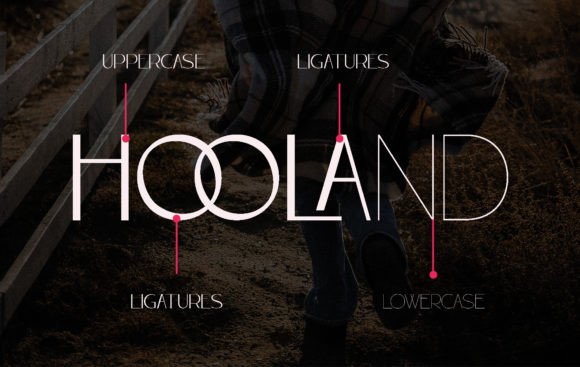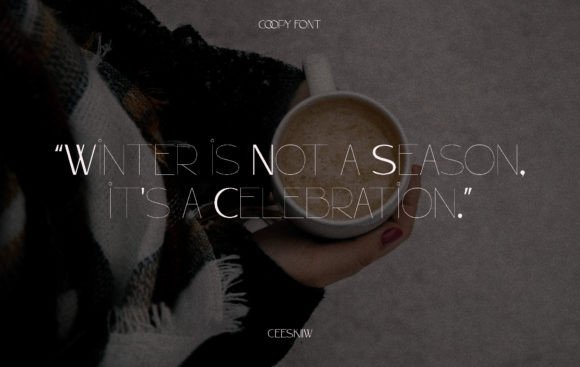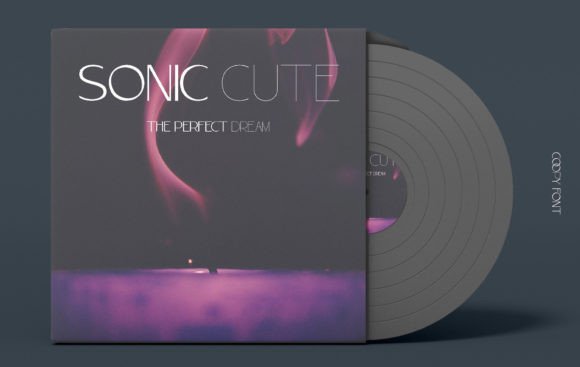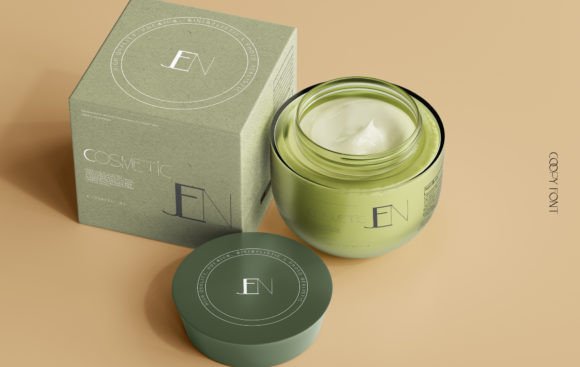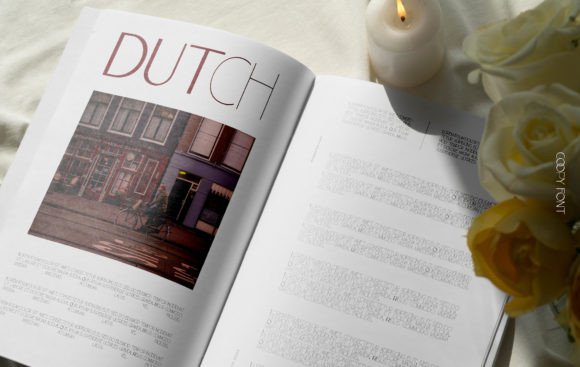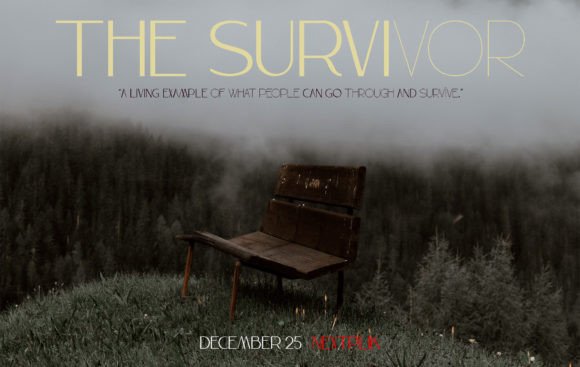
Introducing Coopy Font: Elevate Your Designs with Elegance and Style
Are you looking for a font that can add a touch of luxury and sophistication to your projects? Look no further than Coopy Font, an elegant sans serif font designed to bring your designs to the next level. In this article, we’ll dive into the features and benefits of Coopy Font, and explore how it can be used to create stunning visual content.
What is Coopy Font?
Coopy Font is a modern sans serif font that exudes elegance and style. Its clean lines, precise curves, and balanced proportions make it perfect for a wide range of design applications. Whether you’re working on a logo, branding project, wedding invitation, or blog headline, Coopy Font is the ideal choice.
Key Features of Coopy Font
- Elegant and Sophisticated: Coopy Font boasts a sleek and refined design that’s perfect for high-end branding and luxury projects.
- Versatile: Coopy Font can be used for a variety of design applications, including logotypes, wedding monograms and invitations, blog headlines, and more.
- Easy to Read: The font’s clear and precise letterforms ensure excellent readability, even at small sizes.
- Highly Customizable: Coopy Font comes with a range of weights and styles, allowing you to tailor it to your specific design needs.
Design Applications for Coopy Font
Coopy Font is an incredibly versatile font that can be used in a wide range of design applications. Here are some ideas to get you started:
- Logotypes and Branding: Coopy Font is perfect for creating luxury brand identities, including logos, business cards, and letterheads.
- Wedding Invitations and Monograms: Add a touch of elegance to your wedding stationery with Coopy Font, ideal for invitations, save-the-dates, and monograms.
- Blog Headlines and Titles: Use Coopy Font to create eye-catching headlines and titles for your blog or website, adding a touch of sophistication to your online content.
- Packaging and Advertising: Coopy Font is also suitable for packaging design, advertising, and marketing materials, where its elegant and refined design can help your brand stand out.
Why Choose Coopy Font?
With so many fonts available, why choose Coopy Font for your design projects? Here are just a few reasons:
- Unique and Exclusive: Coopy Font offers a fresh and unique design that’s sure to set your projects apart from the crowd.
- High-Quality: Coopy Font is crafted with precision and attention to detail, ensuring a high-quality design that’s perfect for professional applications.
Get Inspired with Coopy Font
Ready to see Coopy Font in action? Browse through our preview gallery to get inspired by the endless possibilities of this elegant sans serif font. From luxurious branding to beautiful wedding stationery, Coopy Font is the perfect choice for designers and crafters looking to elevate their designs.
In conclusion, Coopy Font is an exceptional sans serif font that offers elegance, style, and versatility for a wide range of design applications. Whether you’re a designer, crafter, or DIY enthusiast, Coopy Font is the perfect choice for adding a touch of luxury and sophistication to your projects. So why wait? Download Coopy Font today and experience the difference for yourself!